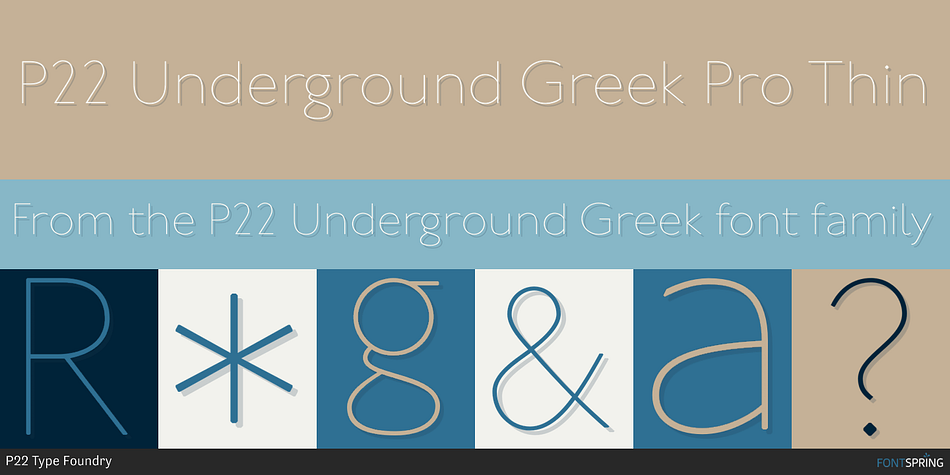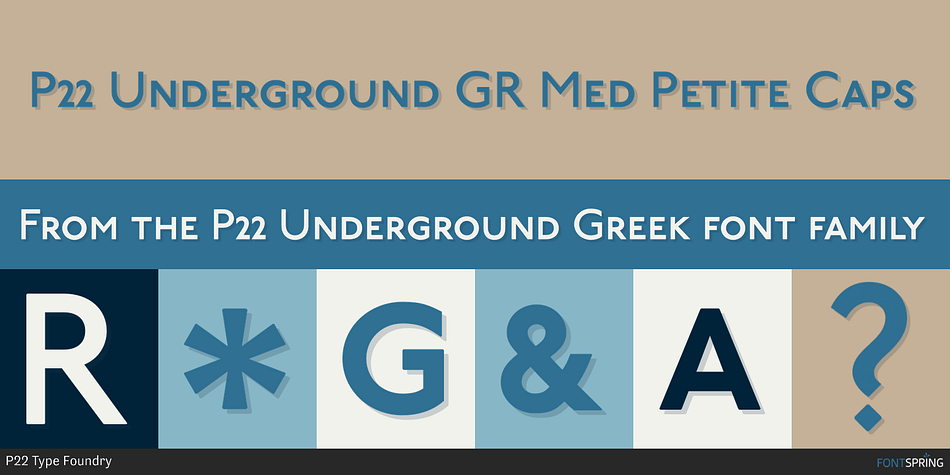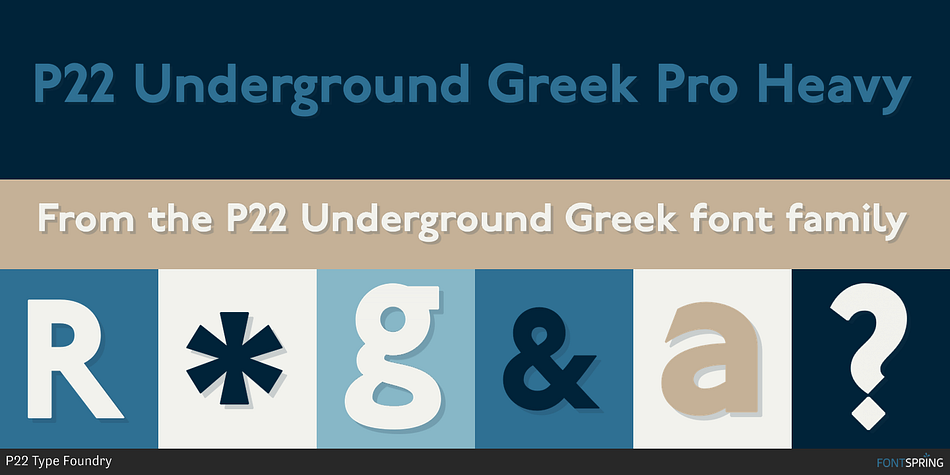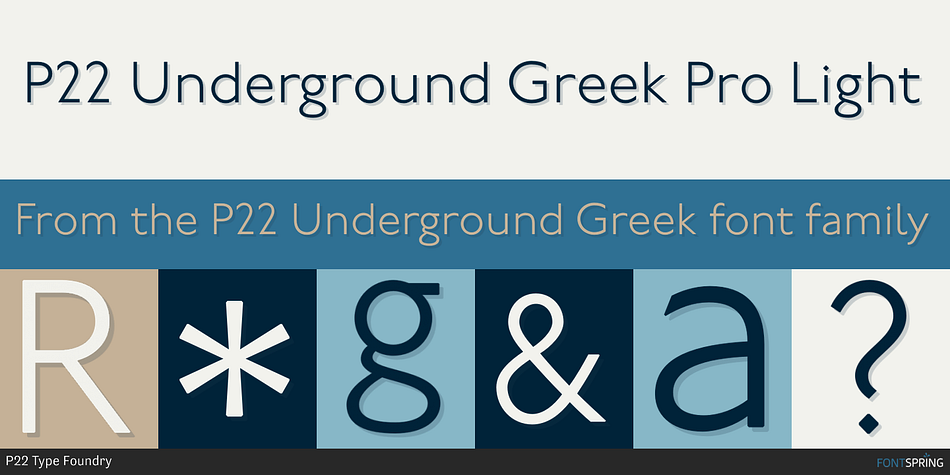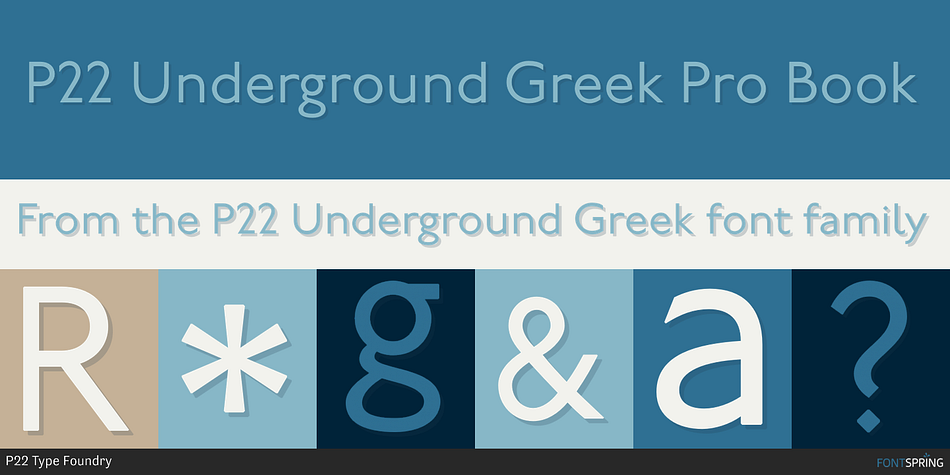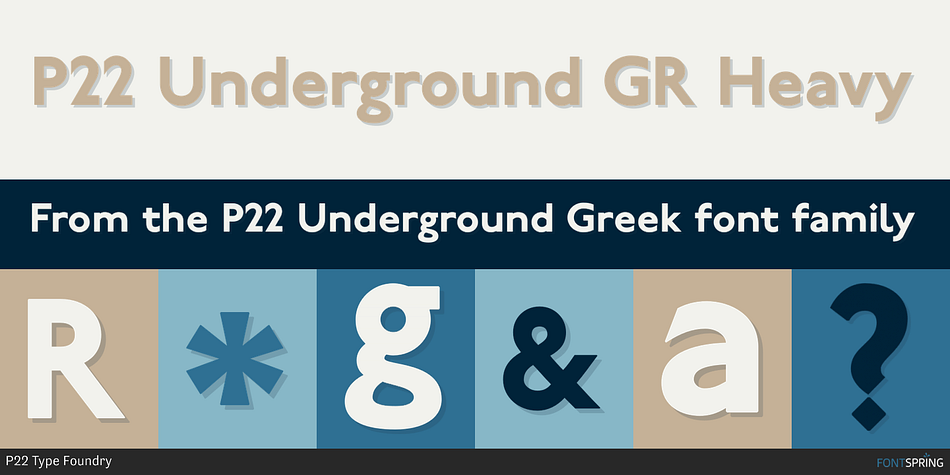
P22 Underground Greek
P22 Underground Greek is a sans serif and display sans font family. This typeface has twenty-four styles and was published by P22 Type Foundry.
Underground Pro expands on the historical design by Edward Johnston , licensed exclusively to P22 from the London Transport Museum. The overall design of Underground Pro is kept as intended by Johnston and remains within his system of proportions. Additional OpenType features, such as Small Caps and Petite Caps, are included in all 6 weights. A Titling option that mimics London Transport signage is offered in the medium weight. The addition of many unicode ranges for unprecedented language support makes this the most expansive P22 font family ever.